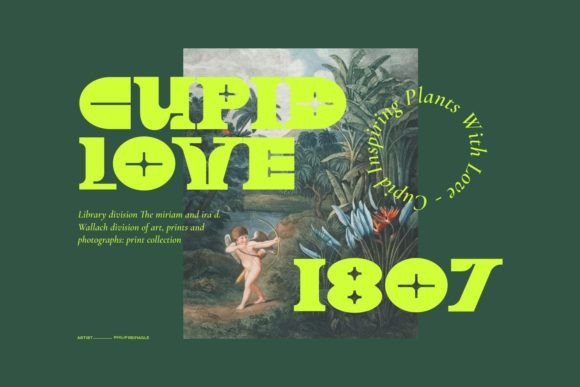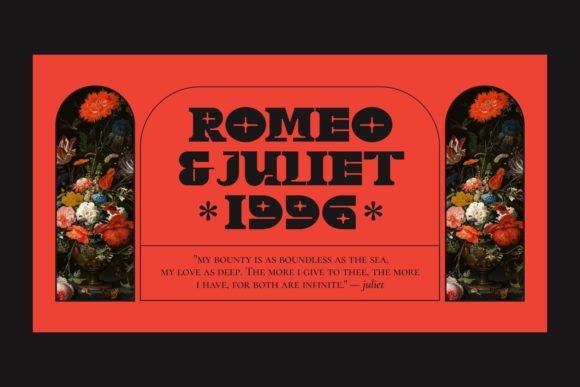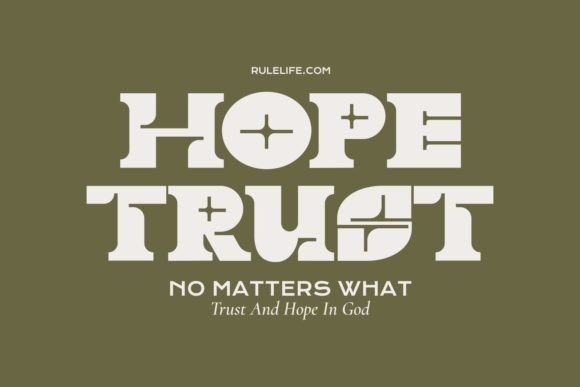
BIG KORUC FONT SPECIMEN
Big Koruc is a bold slab serif font with visual elegance and smooth curves, making your work look true and attractive.
A versatile font that works in both large and small sizes. This font is suitable for a wide variety of projects such as logos, invitations, branding, magazine, photography, card, product packaging, product mockup, mugs, quotes, posters, labels, signatures, editorials, websites, art deco, social media, and much more.
A font that is perfect for all business sectors including personal projects, studios, corporate, creative agencies, industrial, company, etc.